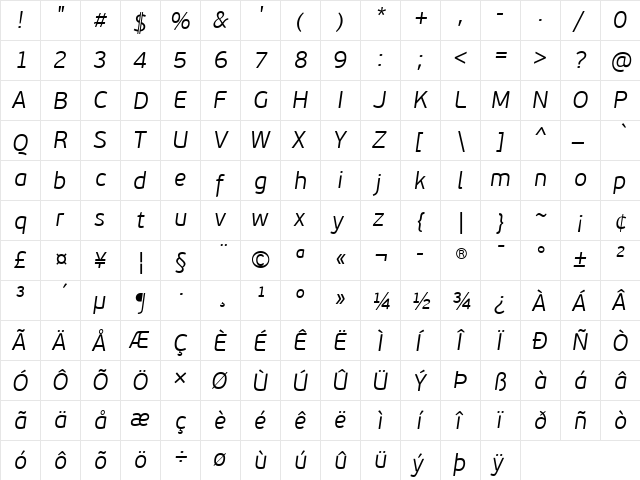
PF BeauSans Pro Light Italic
| Foundry | Parachute蠗orldwide |
| Designer | Panos Vassiliou |
Design Context for PF BeauSans Pro Typeface
PF BeauSans Pro takes a measured approach to typography — its balanced proportions and neutral character make it a reliable workhorse for both digital and print work. Its italic angle brings a sense of urgency and motion to the letterforms. The delicate stroke weight brings airiness and refinement to layouts.